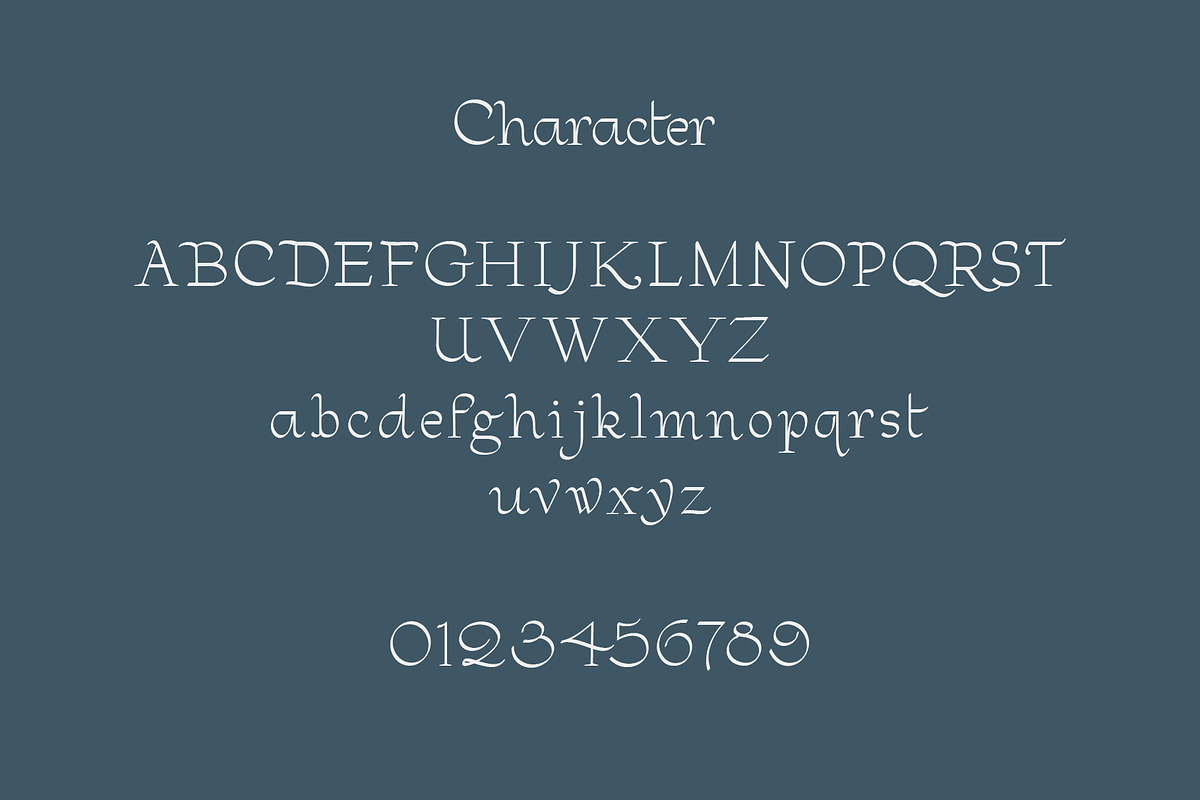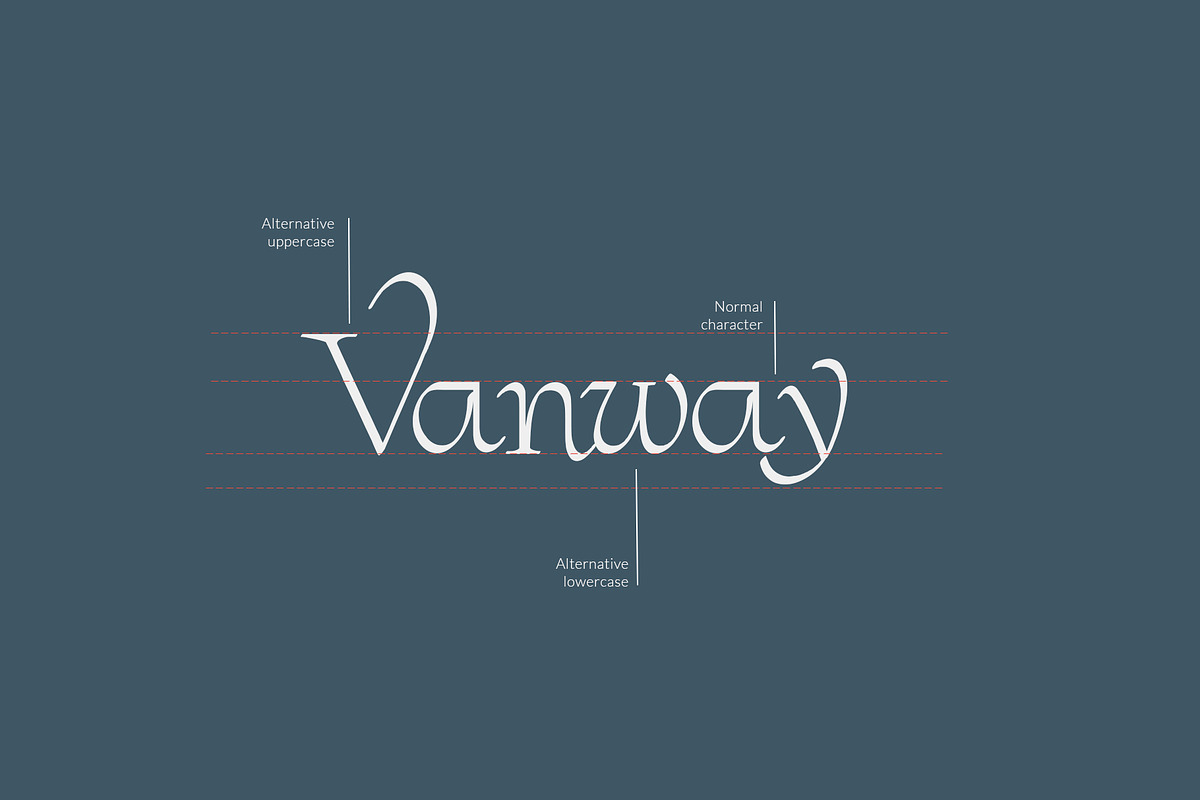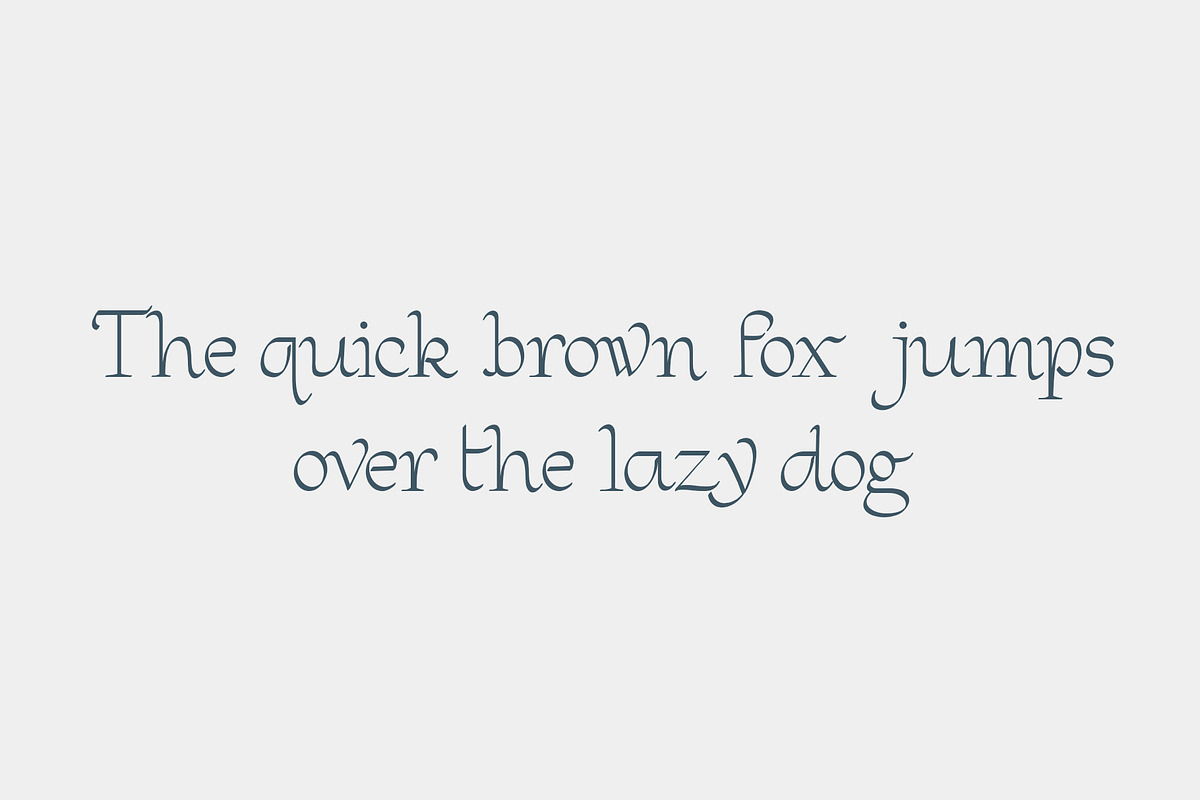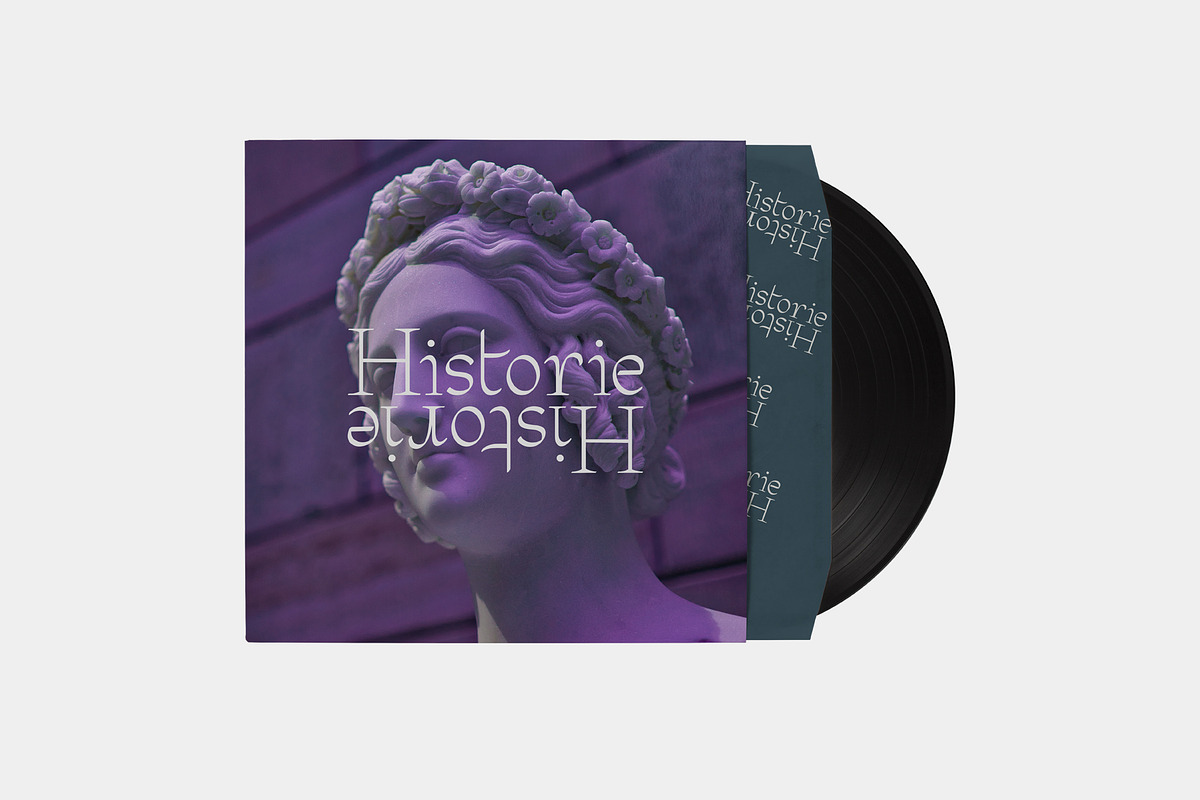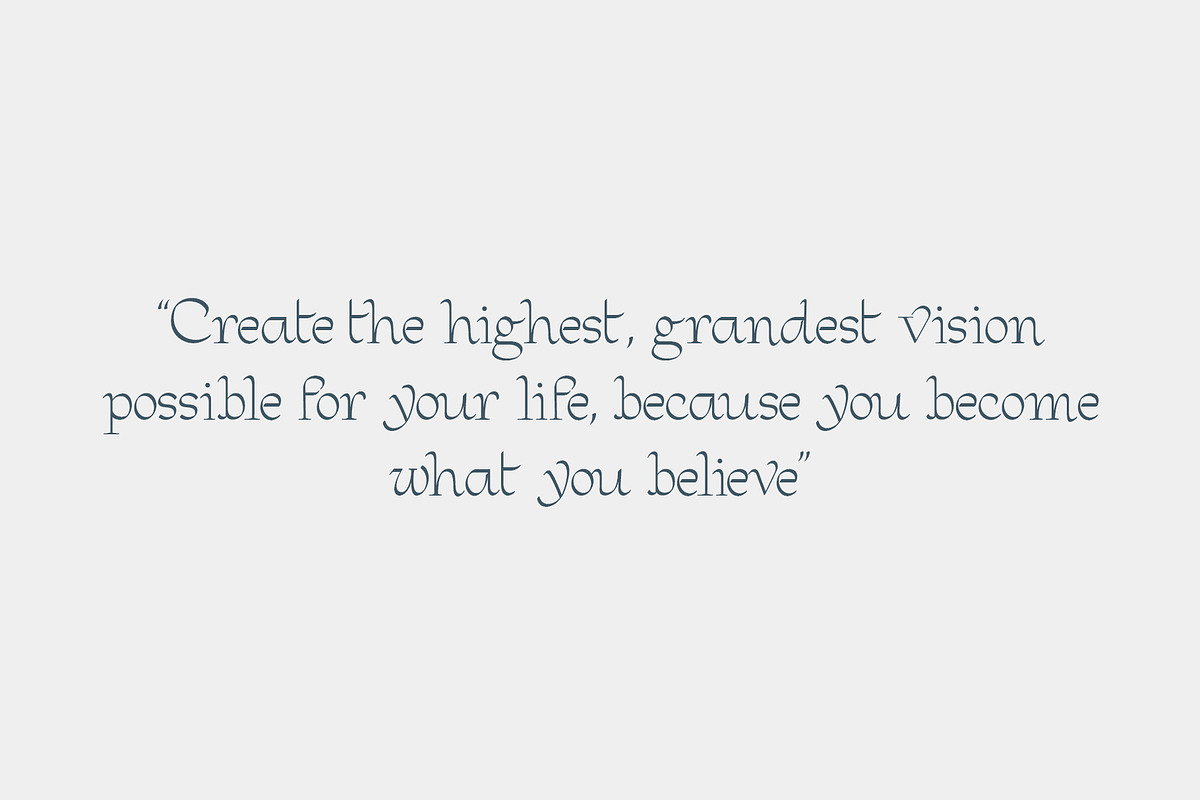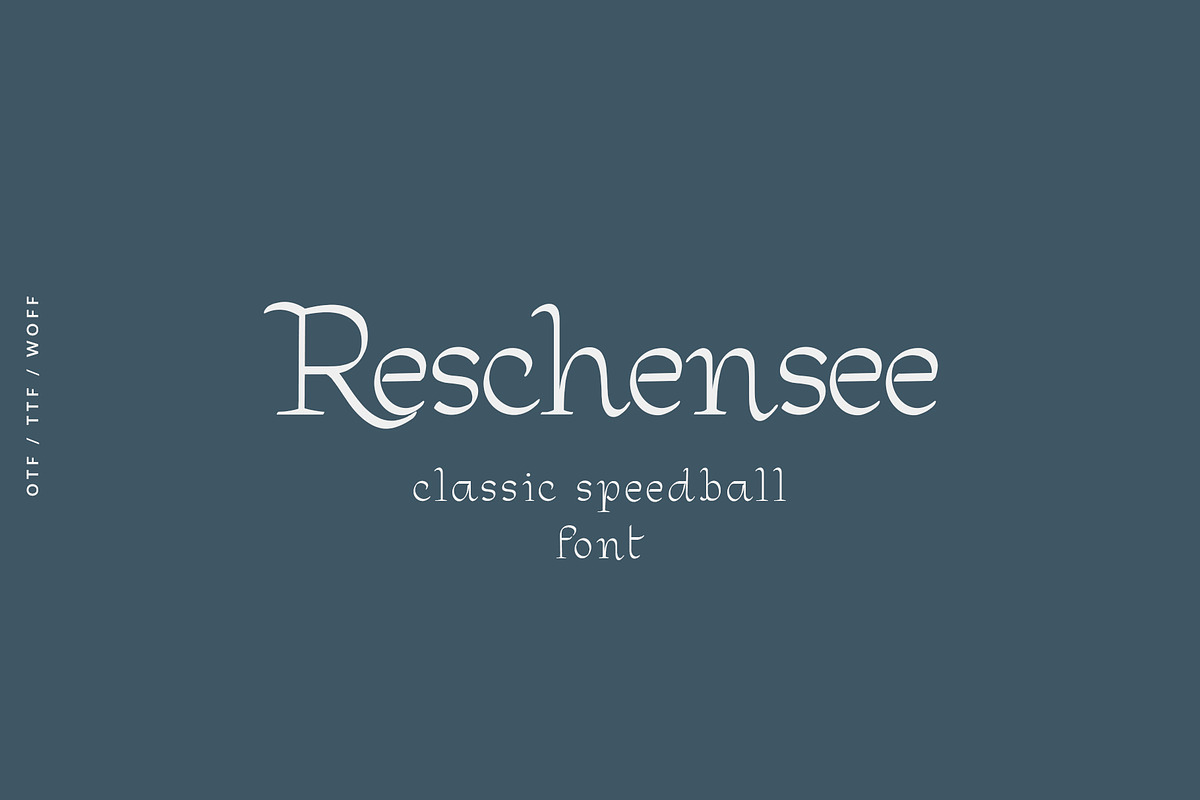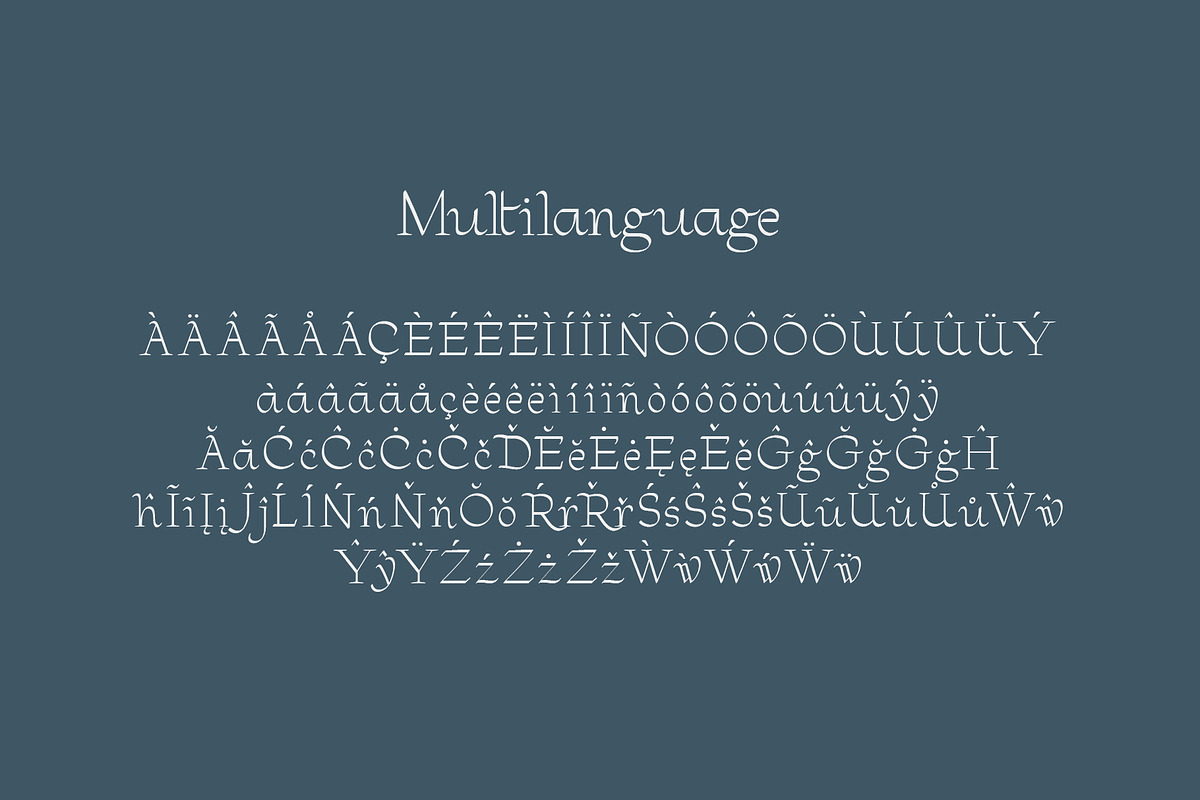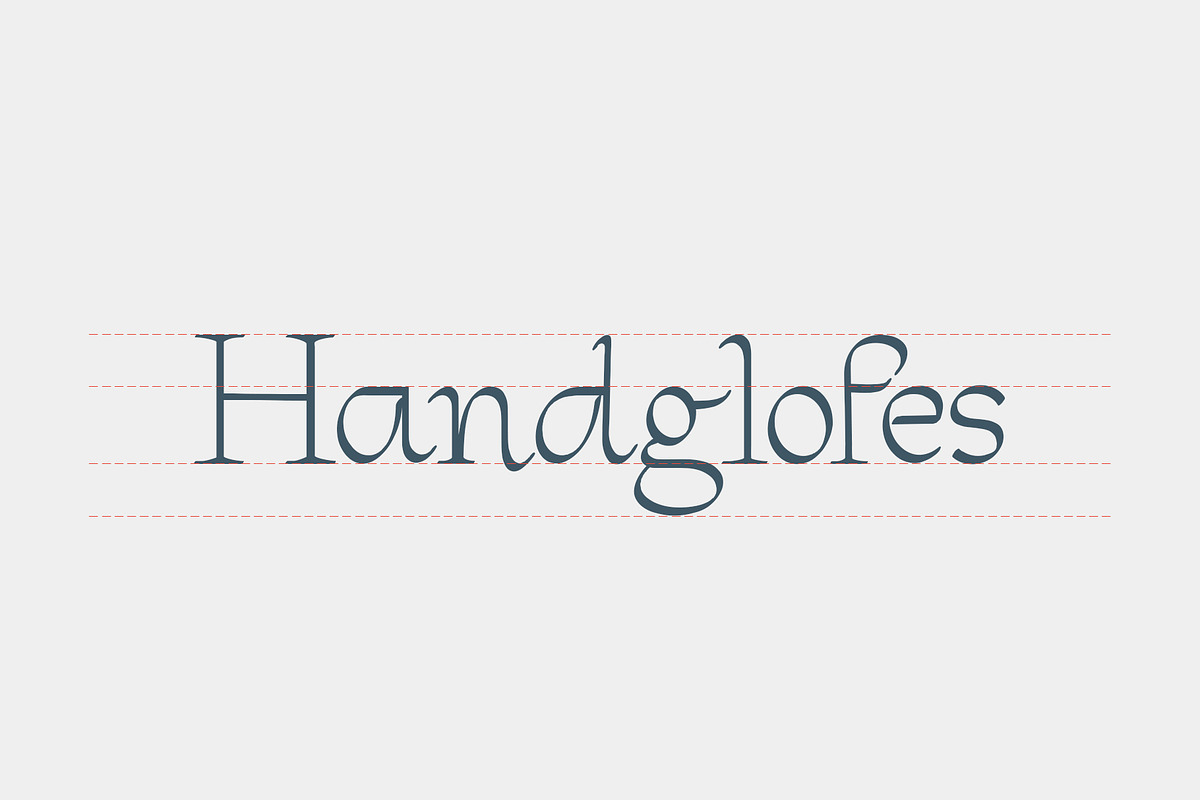
Reschensee font
reschensee is a speedball style font that looks classic, elegant and simple. This font is made from several font book references and is designed in such a way as to become an attractive font, this font has several features such as: uppercase & lowercase character, number and punctuation, alternative character, multilanguage support, and PUA code. This font is suitable for your design needs such as: poster design, branding, layout design, User interface, logo design, etc.
multi language support
Alternative Character